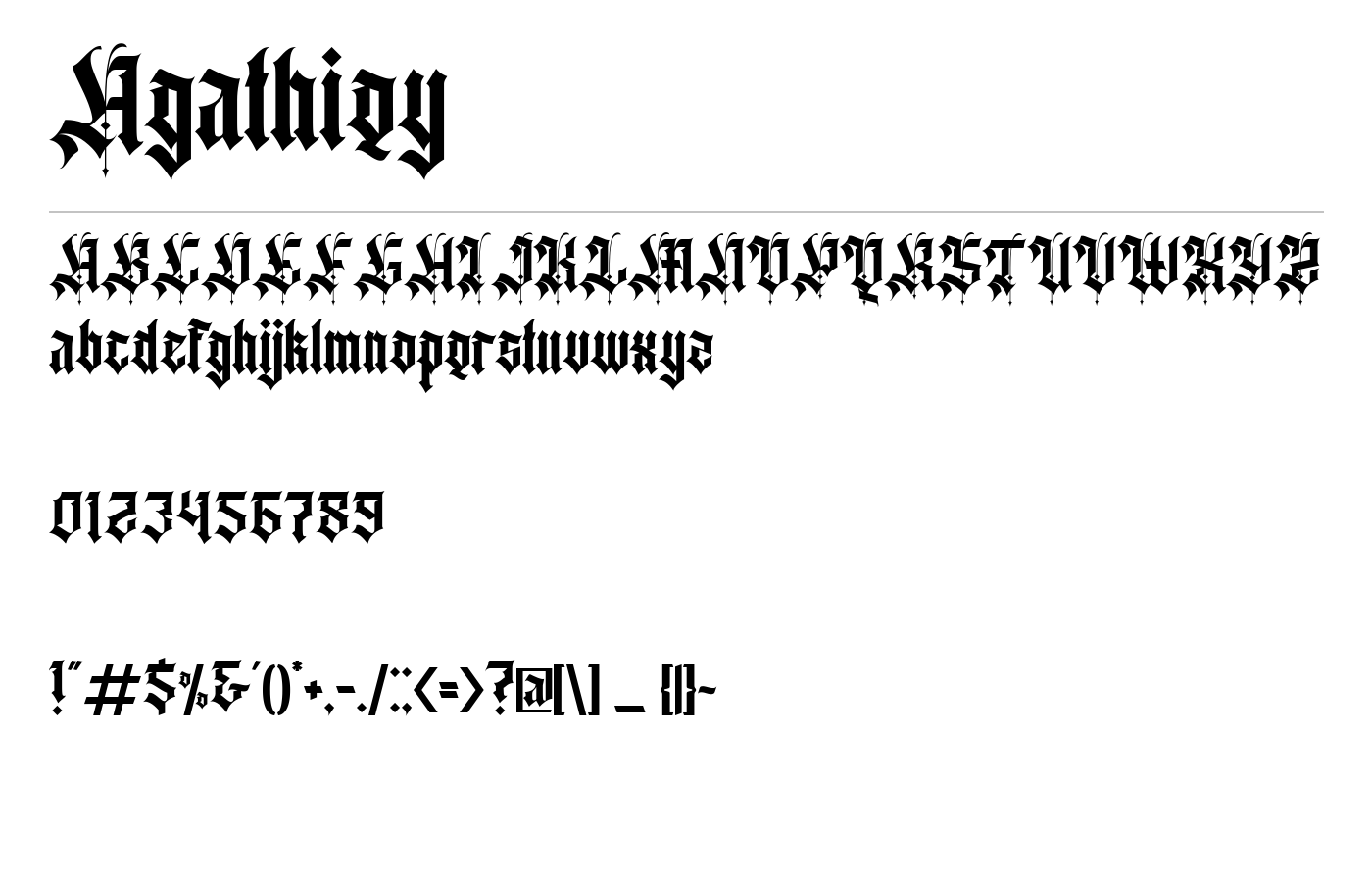
Agathiqy is a bold blackletter serif font characterized by sharp, dramatic strokes and intricate, angular details that evoke a historic Gothic style. Its dense weight and high contrast between thick and thin lines give it a strong, commanding presence, making it ideal for impactful headlines, logos, and designs seeking a medieval or vintage vibe. This font excels in contexts where a decorative, traditional, and somewhat formal atmosphere is desired, such as in branding for luxury, fashion, or editorial projects aiming to convey elegance with a striking edge.
Agathiqy Font
About Agathiqy Font